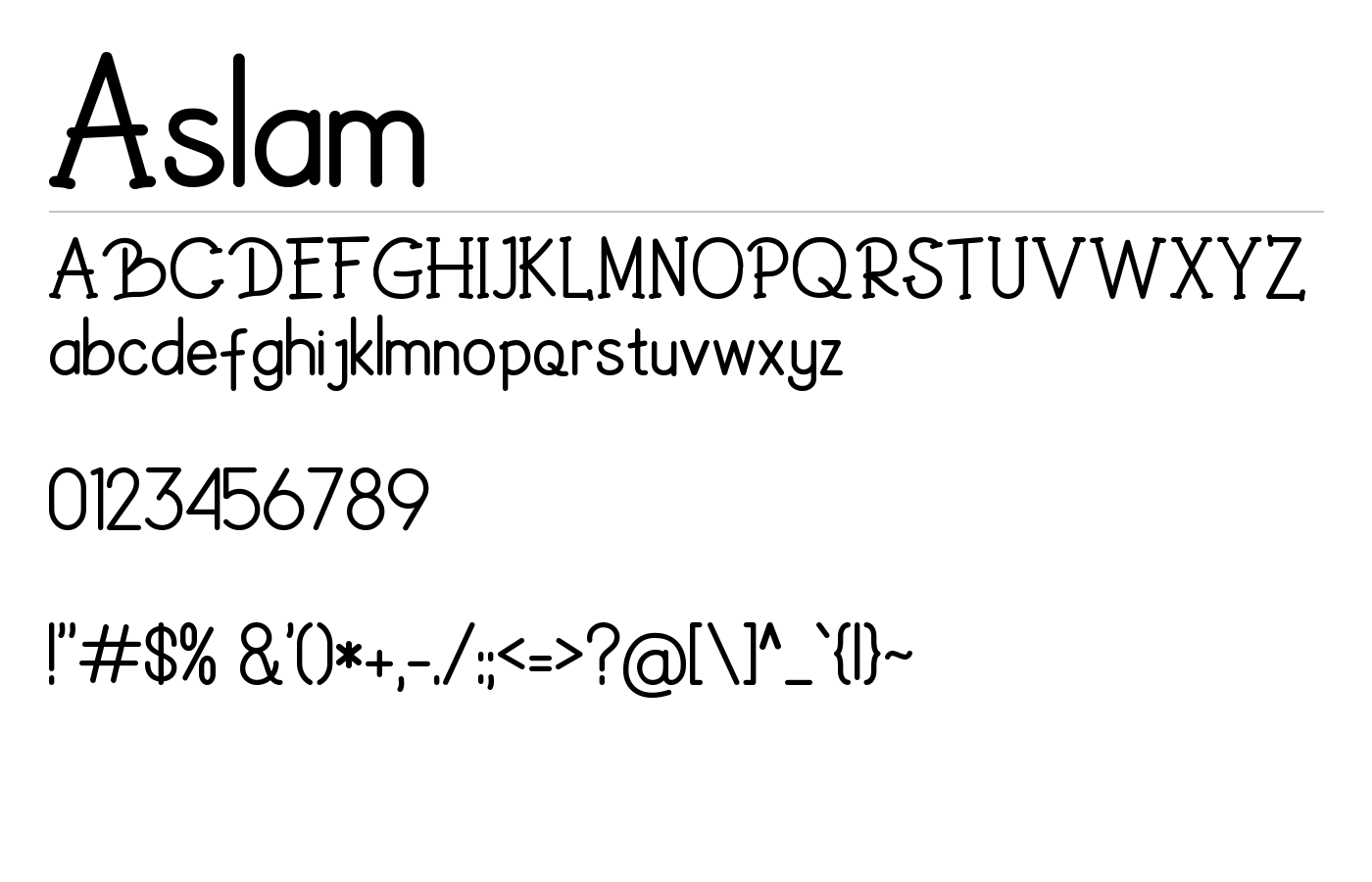
Aslam Font is a playful and quirky sans serif typeface with a light weight and a slightly condensed width. Its irregular, hand-drawn style with uneven stroke endings and unique character shapes gives it a casual, friendly personality, making it ideal for creative projects, informal branding, and children's materials. This font works well for headlines and display uses where a distinctive, approachable look is desired.
Aslam Font
About Aslam Font